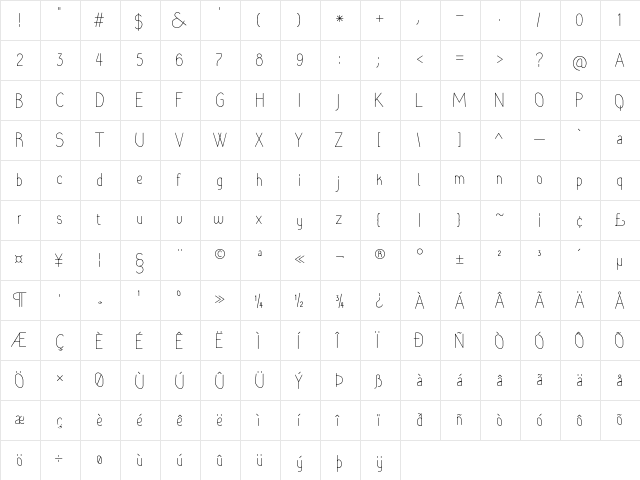
Rara Dolor Regular
Regular · Fabiane Lima Fabiane Lima ·
Design Context for Rara Dolor Typeface
Rara Dolor takes a measured approach to typography — its balanced proportions and neutral character make it a reliable workhorse for both digital and print work.